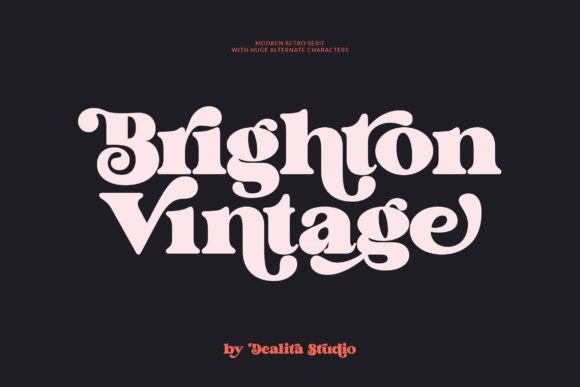
Introducing Brighton Vintage Font: A Stylish Retro Bold Font
The Brighton Vintage Font is a stylish and bold font that embodies the essence of the 1970s with its thick curves and traditional serifs. This font is perfect for designers looking to add a touch of nostalgia and sophistication to their designs. In this article, we will explore the features and benefits of the Brighton Vintage Font and how it can be used in various design projects.
A Retro yet Traditional Font
The Brighton Vintage Font is a unique blend of retro and traditional elements. Its thick curves give it a groovy 70s vibe, while the serifs bring it back to a more traditional feel. This font is perfect for designers who want to create designs that are both nostalgic and modern. The bold and eye-catching design of the font makes it perfect for headlines, titles, and other display text.
Perfect for Various Design Projects
The Brighton Vintage Font is a versatile font that can be used in a variety of design projects. Its unique design makes it perfect for:
- Logos: The bold and eye-catching design of the font makes it perfect for logos that need to stand out.
- Invitations: The traditional feel of the font makes it perfect for formal invitations, such as wedding invitations and formal event invitations.
- Labels: The font’s bold design makes it perfect for labels that need to grab attention.
- Magazines and Books: The font’s readability and traditional feel make it perfect for body text in magazines and books.
- Greeting and Wedding Cards: The font’s nostalgic feel makes it perfect for greeting and wedding cards.
- Packaging: The font’s bold design makes it perfect for packaging designs that need to stand out on store shelves.
- Fashion and Makeup: The font’s stylish and retro feel makes it perfect for fashion and makeup brands.
- Stationery: The font’s traditional feel makes it perfect for stationery designs, such as letterheads and business cards.
- Novels: The font’s readability and traditional feel make it perfect for novels and other long-form written works.
PUA Encoded for Easy Access to Glyphs and Ligatures
The Brighton Vintage Font is PUA encoded, which means that designers can access all of the amazing glyphs and ligatures with ease. PUA encoding allows designers to access a wide range of characters and symbols that can be used to add visual interest to designs. This feature makes the font even more versatile and easy to use.
Benefits of Using Brighton Vintage Font
There are several benefits to using the Brighton Vintage Font in design projects. Some of the benefits include:
- Unique Design: The font’s unique blend of retro and traditional elements makes it stand out from other fonts.
- Versatility: The font can be used in a variety of design projects, from logos to packaging.
- Easy to Use: The font is PUA encoded, making it easy to access glyphs and ligatures.
- High Readability: The font’s traditional feel and clear design make it highly readable.
Tips for Using Brighton Vintage Font
Here are some tips for using the Brighton Vintage Font in design projects:
- Use it as a Headline Font: The font’s bold design makes it perfect for headlines and titles.
- Pair it with Other Fonts: The font can be paired with other fonts to create a unique and interesting design.
- Experiment with Colors: The font’s bold design makes it perfect for experimenting with different colors and textures.
The Brighton Vintage Font is a stylish and versatile font that is perfect for designers looking to add a touch of nostalgia and sophistication to their designs. Its unique blend of retro and traditional elements makes it stand out from other fonts, and its PUA encoding makes it easy to use. With its high readability and versatility, the Brighton Vintage Font is a great choice for a wide range of design projects.